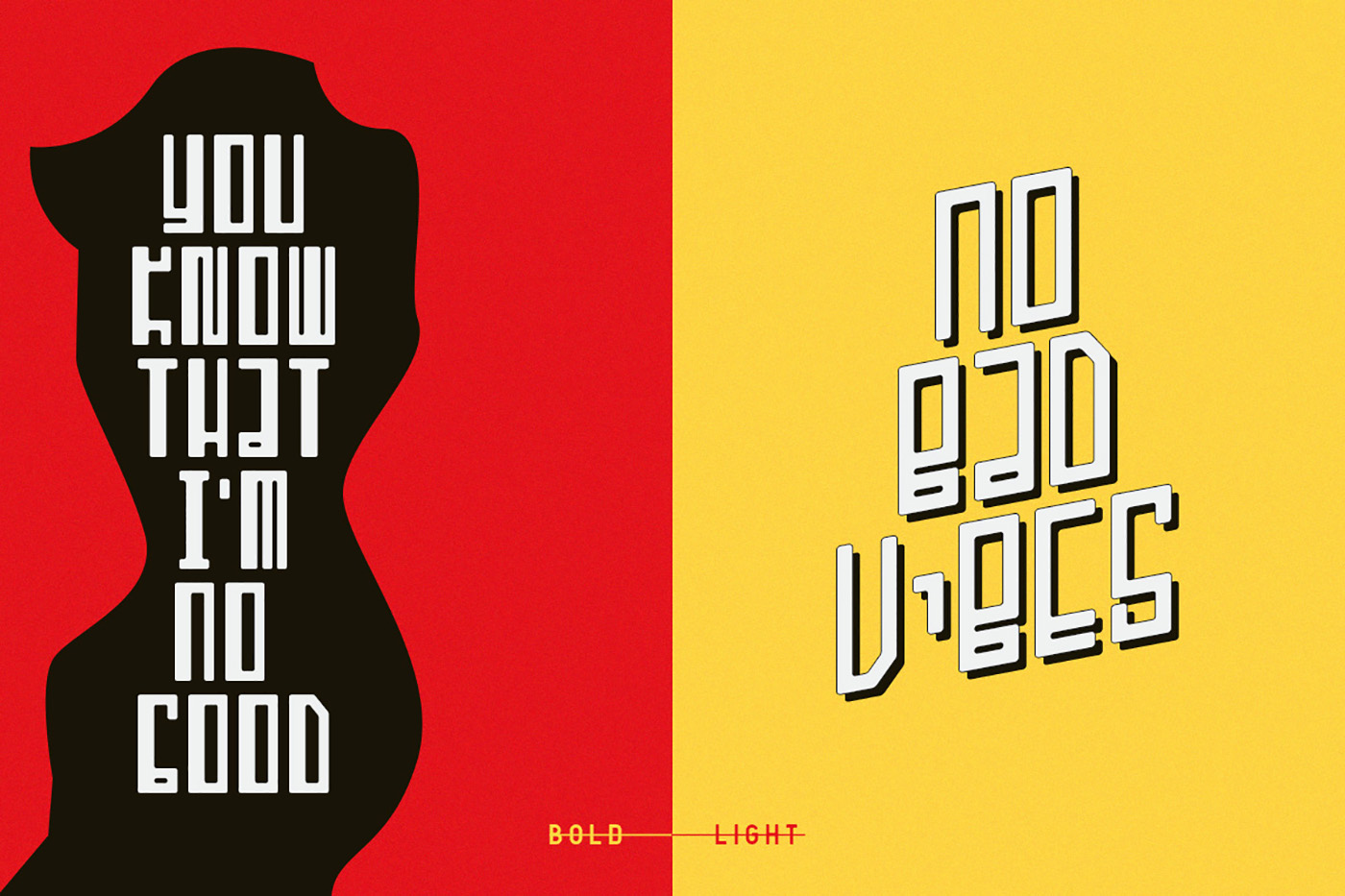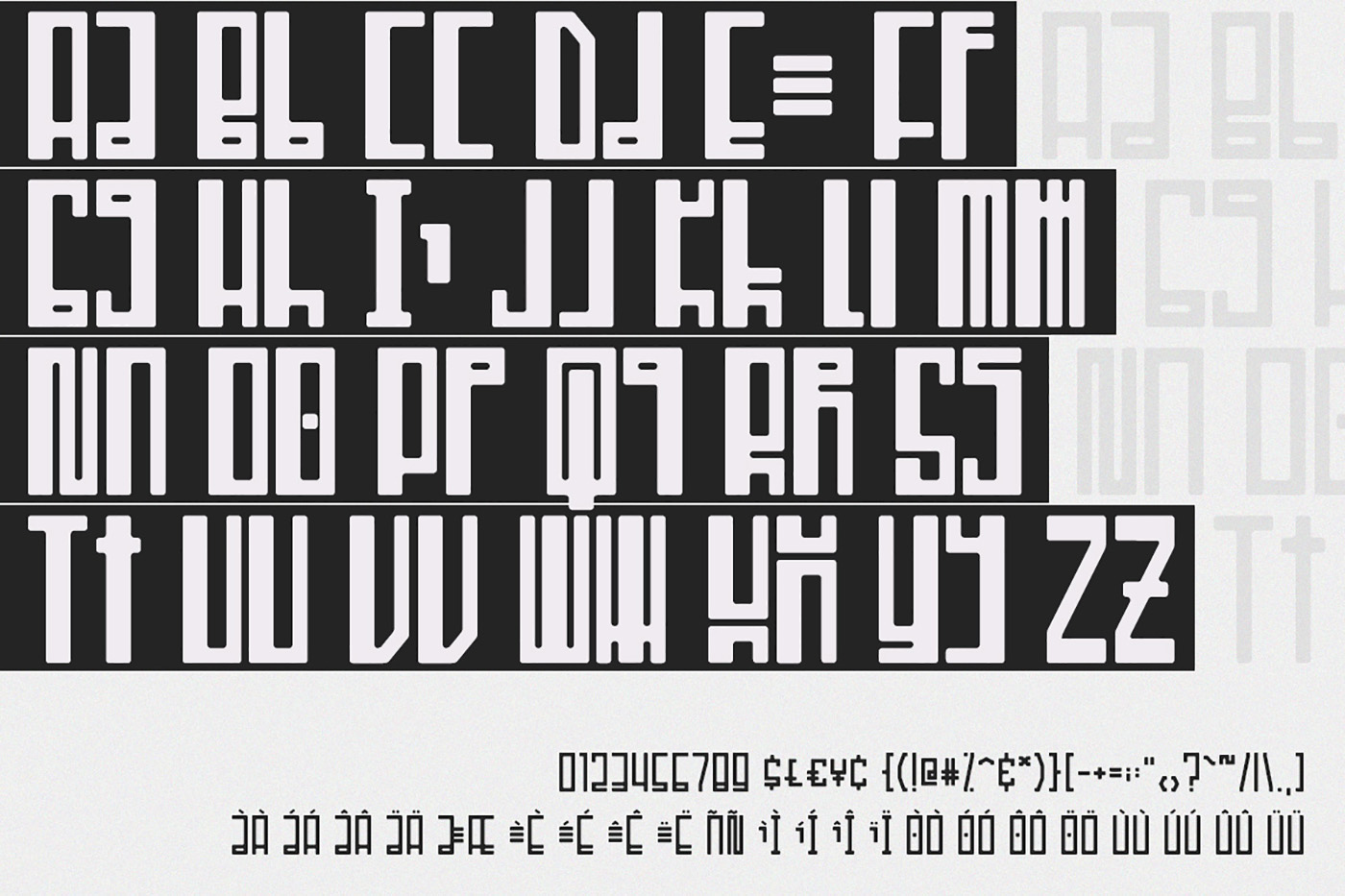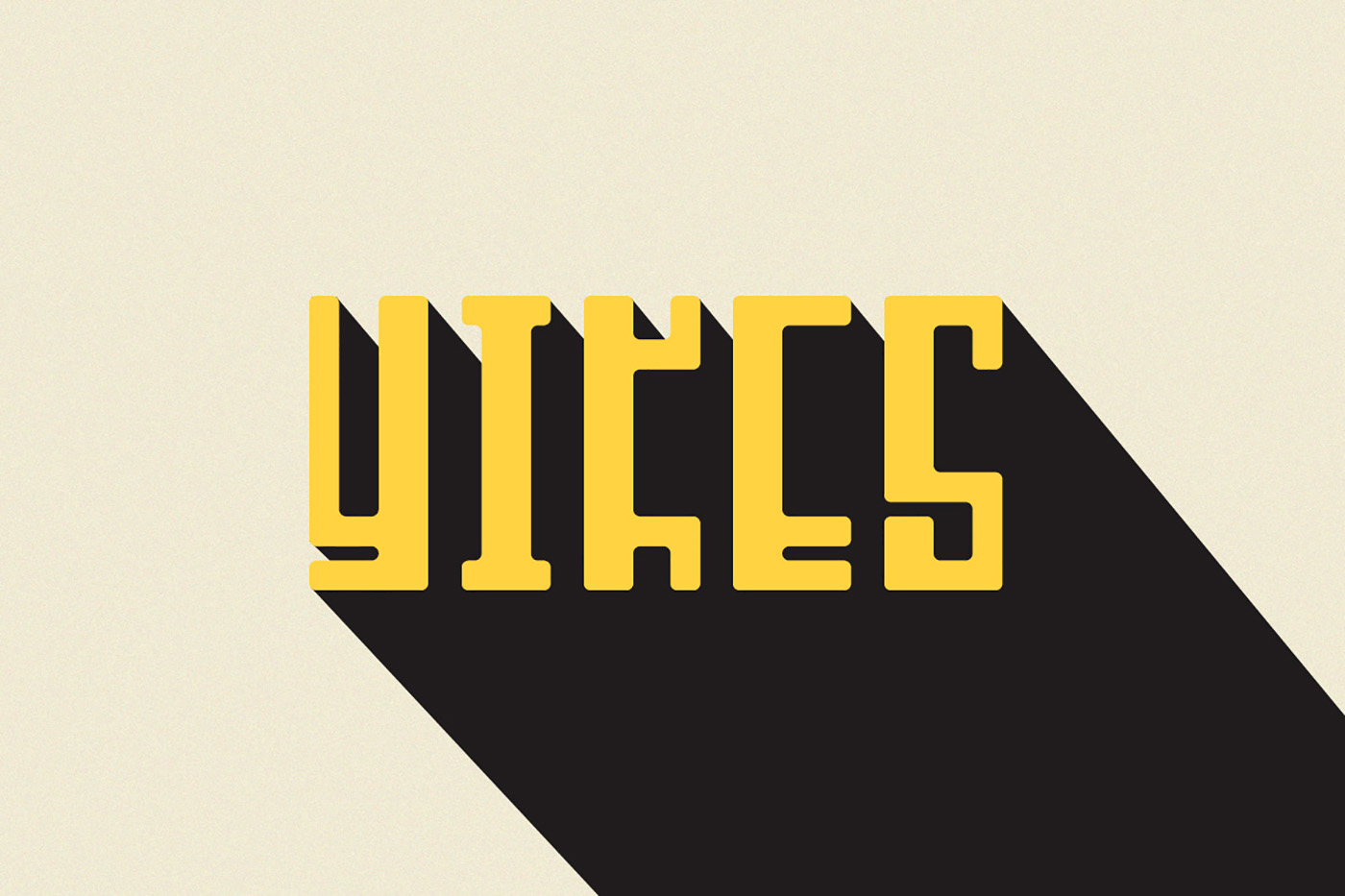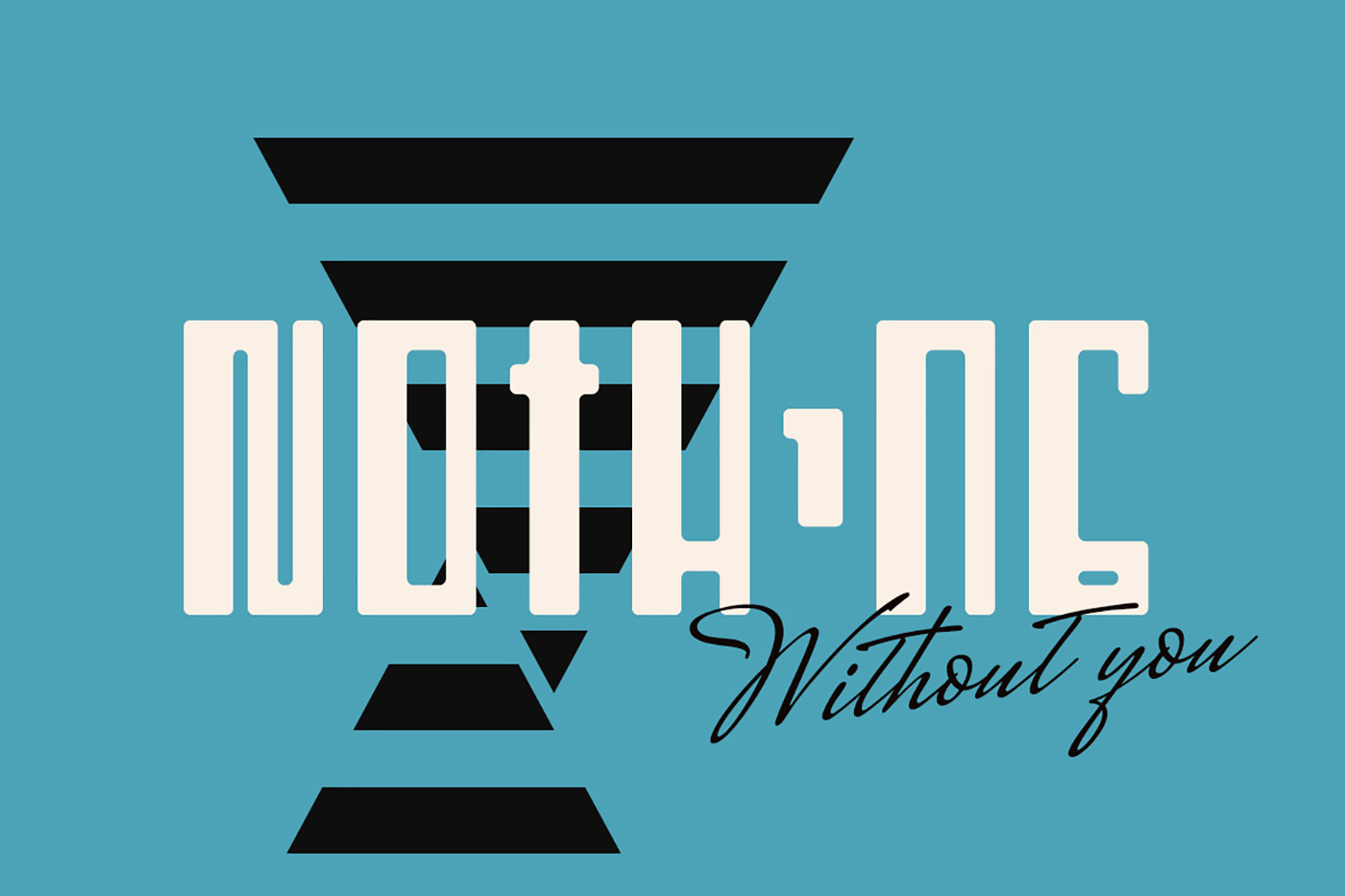
Introduction to Phephe Font
Phephe is a fun decorative font based on vintage design, meant to stimulate your lovely design work.
Bold and intriguing, Phephe is a very unique font that can be used to modernize more traditional designs, as well as anchor very sleek designs Add Phephe, a decorative font, to your font collection today.